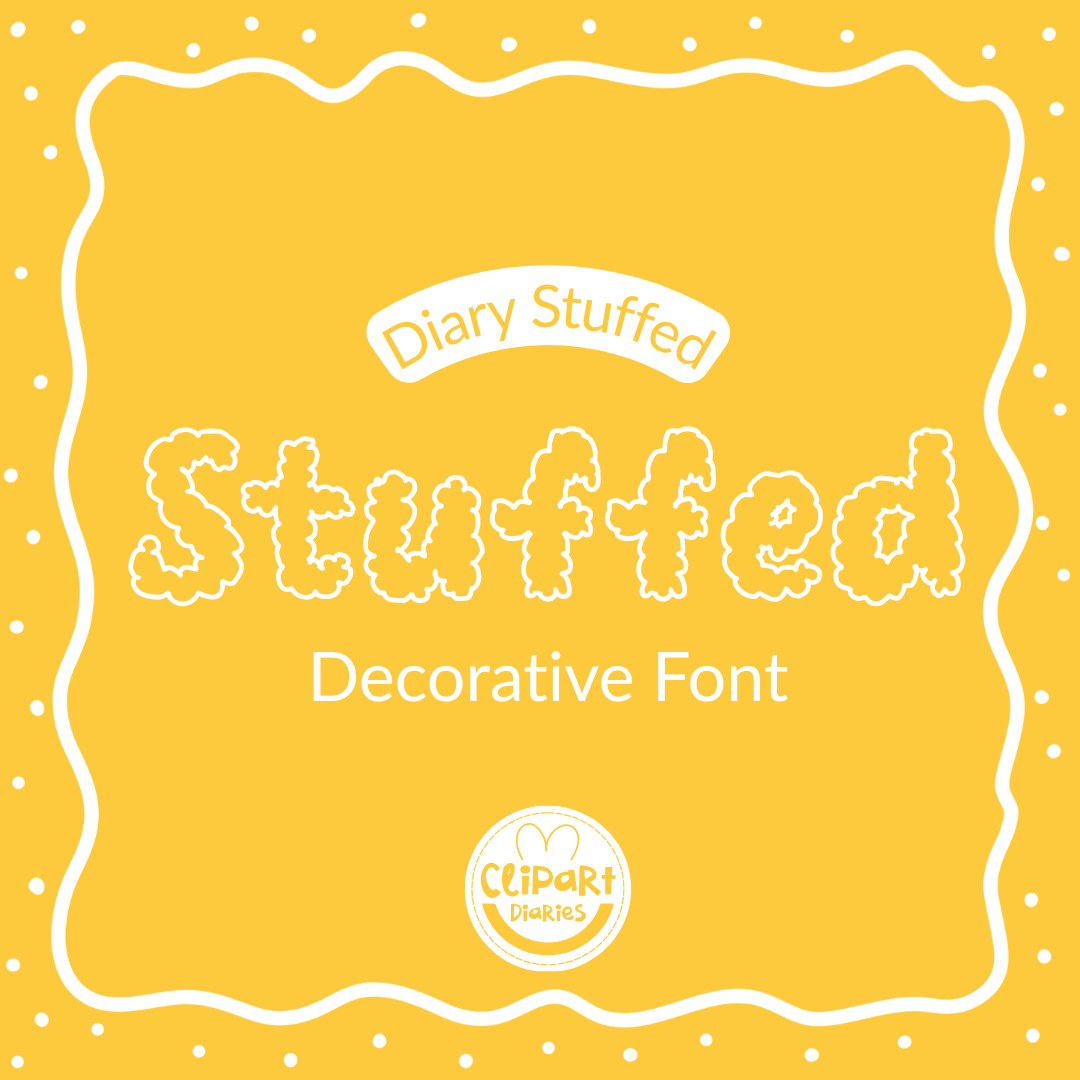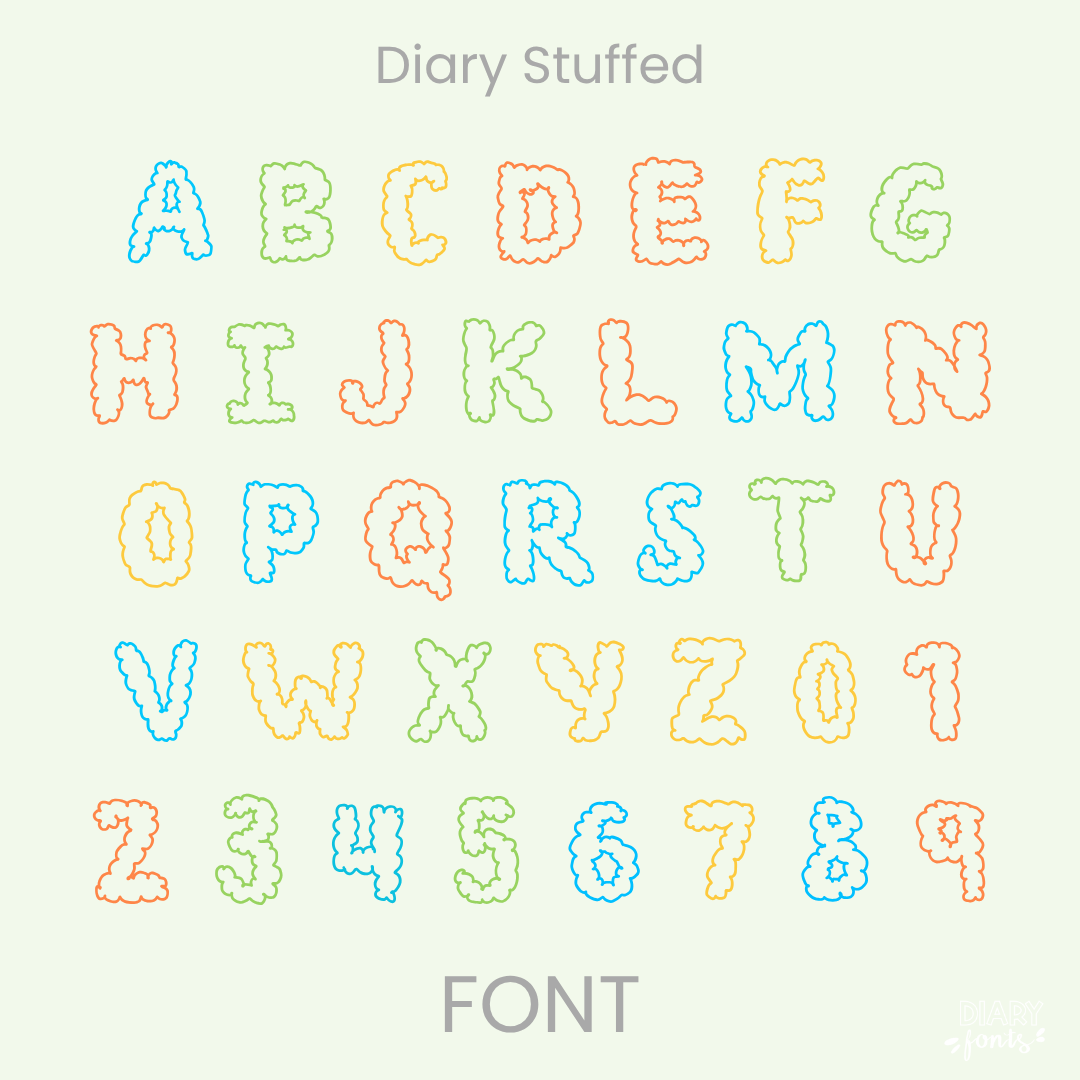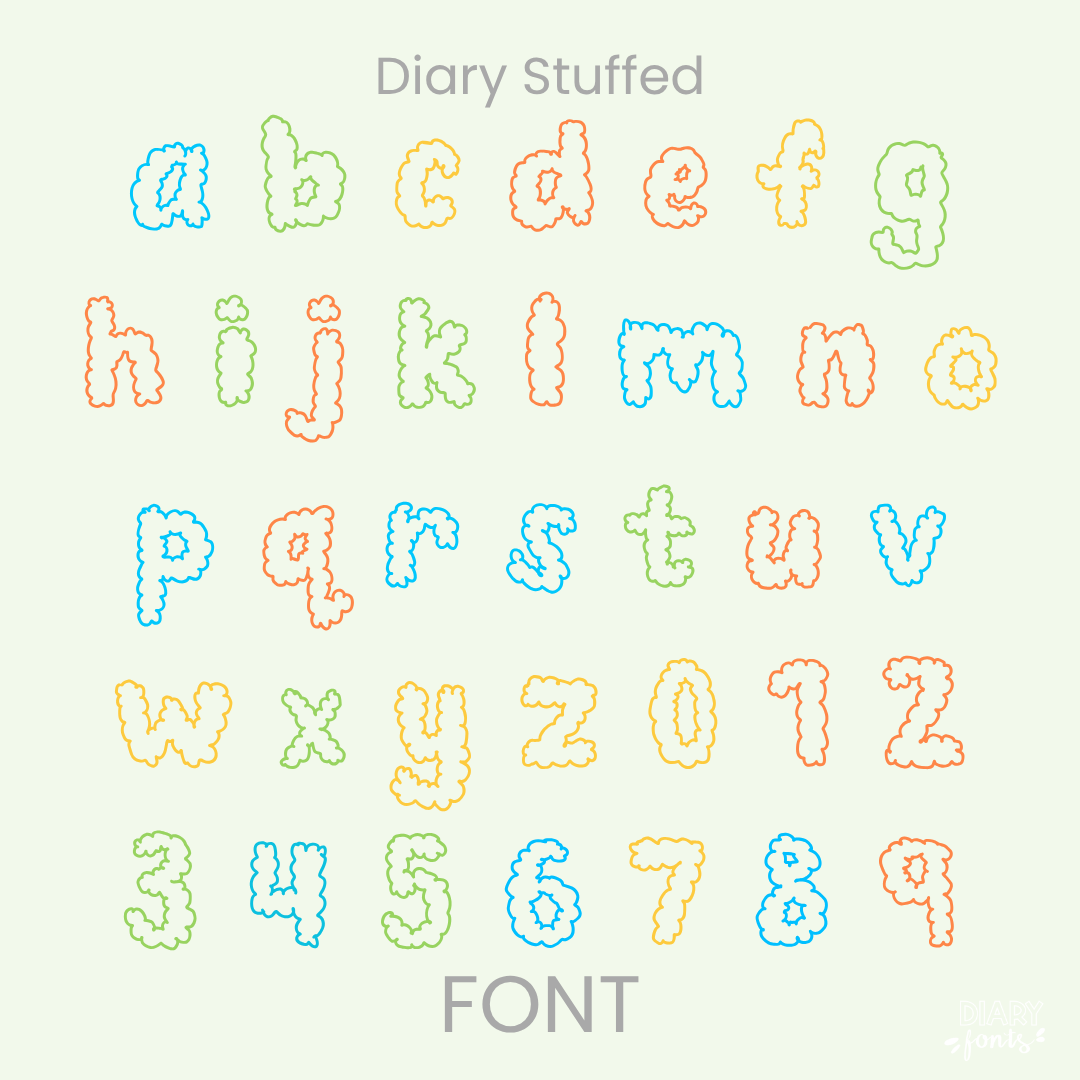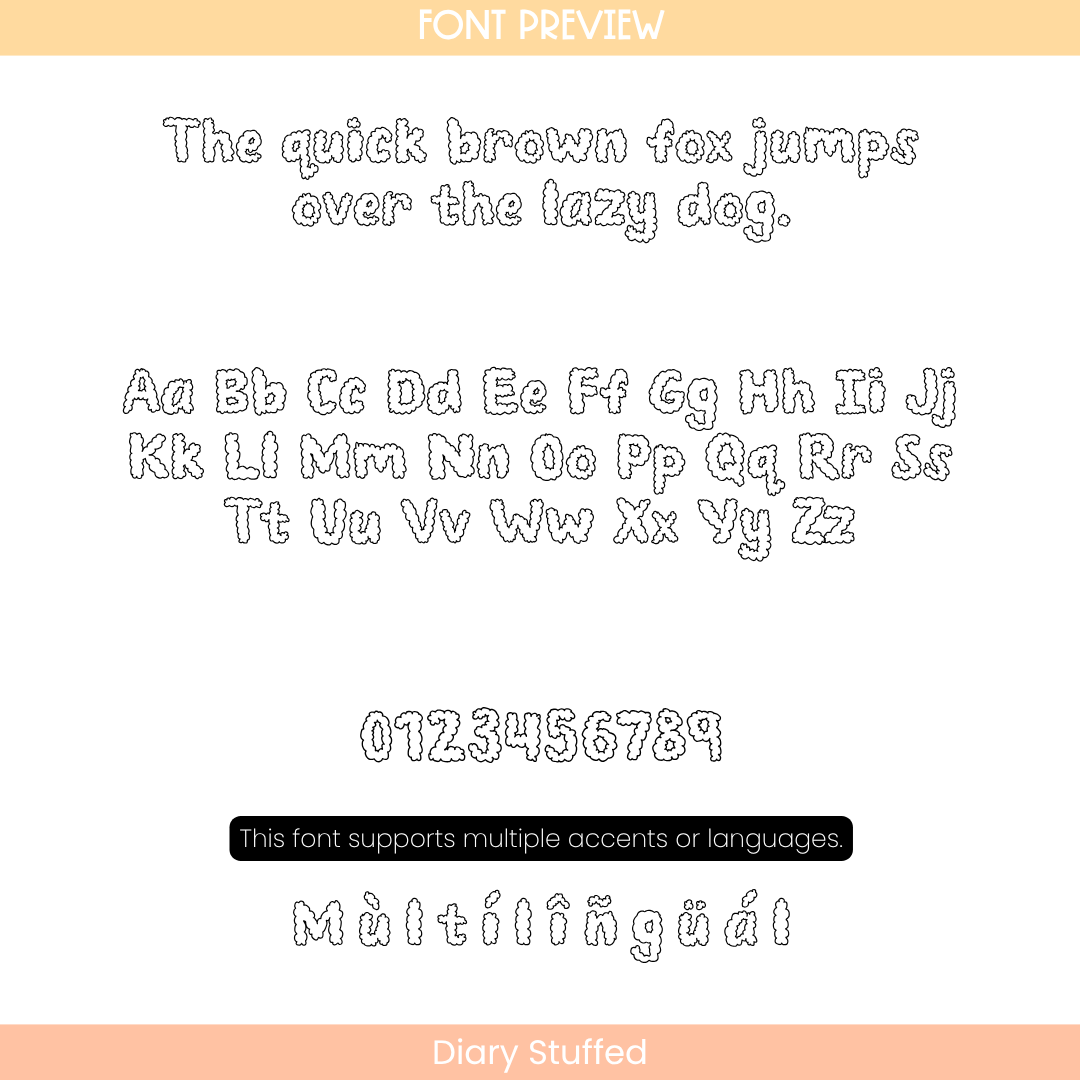
If you’ve been looking for a go-to playful decorative font that adds an instant pop of joy but keeps your layouts looking incredibly organized, Diary Stuffed is about to become your new absolute favorite. This unique typeface features a beautifully textured, cloud-like puffy border outlining every single character. Because these delightful hand-drawn letters maintain a balanced, open spacing and stand perfectly uniform straight along the baseline, it completely eliminates visual clutter—giving you a uniquely textured look that is an exceptionally clear and legible choice for your sweet students.
It is an absolute dream choice for typing up dreamy weather units, seasonal bulletin board headers, elementary science worksheets, morning meeting presentation titles, and fun classroom signs. Inside the download, you’ll get a full set of neat fluffy uppercase and lowercase print letters, matching cloud-rimmed numbers, and multi-accent marks for complete multilingual support. It drops right into Canva, MS Office, or Adobe on your desktop, and pairs beautifully with Procreate and GoodNotes on your iPad. Whether you’re prepping daily printables for your own sweet classroom or designing a fresh new commercial-use educational resource line for your online teacher shop, this decorative outline font adds a touch of confident, friendly style to your creative toolkit.